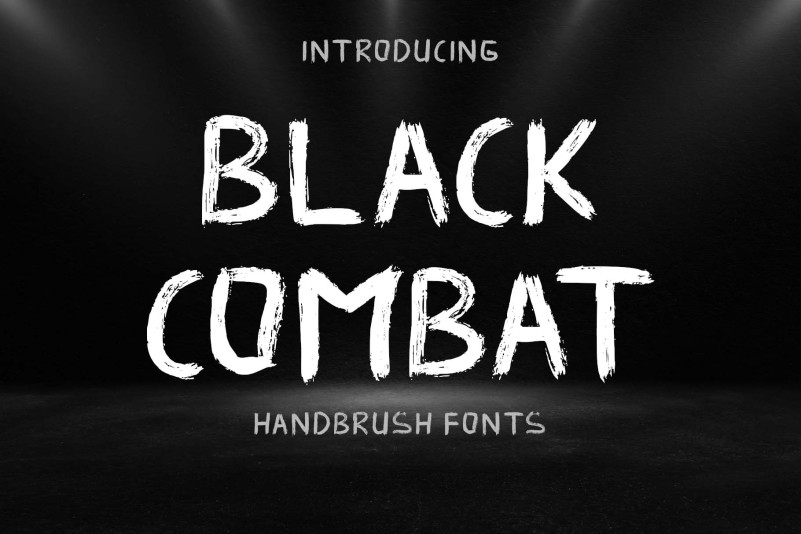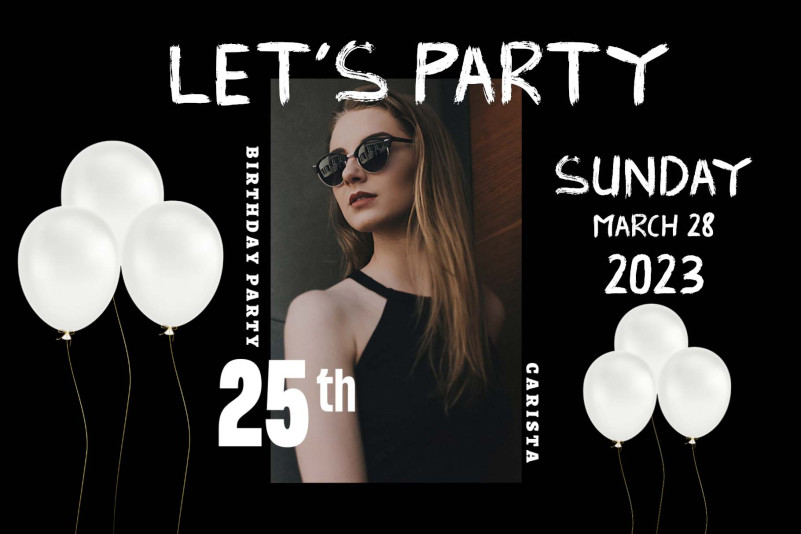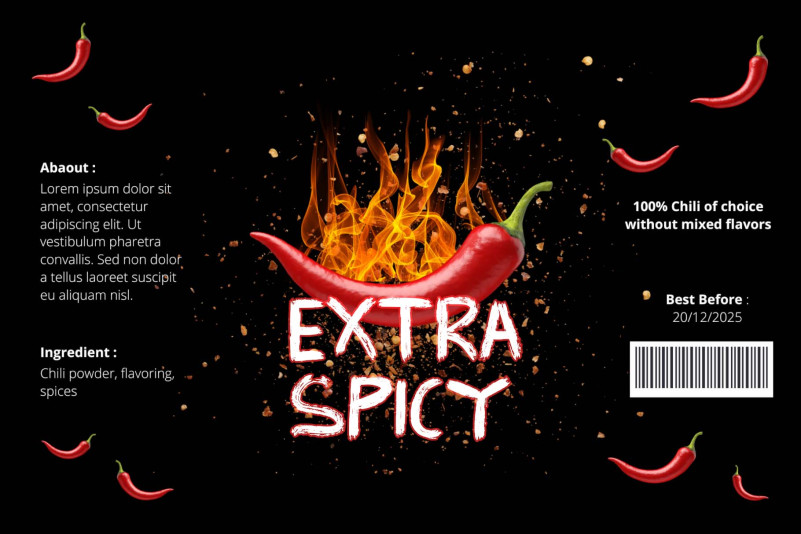
Black Combat Font
Black Combat Font is a cool and modern brush display font. Add it to your creative projects and you will be amazed by the generated outcome!